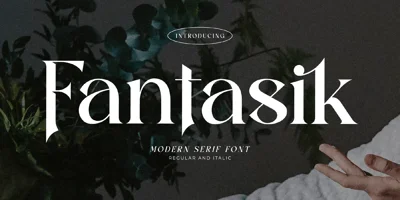
Fantasik Font
Fantasik Font is perfect for fantasy gaming brands, magical entertainment campaigns, fairy tale book covers, whimsical children's products, mystical wellness centers, enchanted event planning, creative imagination workshops, fantasy film titles, magical theater productions, and dreamlike applications that celebrate the boundless power of imagination and wonder.
What makes Fantasik Font truly exciting is its extraordinary ability to transform ordinary text into magical experiences that ignite imagination and transport audiences into realms of endless possibility and creative wonder. This exceptional typeface embodies the essence of fantasy with its enchanting letterforms and mystical character that convey both magical authenticity and imaginative power. The font's fantasy-inspired personality and wonder-filled design make it perfect for brands seeking to communicate creativity, magic, and the transformative power of imagination that turns dreams into reality and ordinary moments into extraordinary adventures.
The Fantasik Font family includes multiple weights and styles: Light, Regular, Medium, Bold, and Magical variations designed for maximum fantasy impact. Each family member maintains the distinctive enchanting character while offering flexibility for diverse imaginative applications and magical branding systems. The comprehensive character set supports fantasy typography needs and mystical design elements, making it suitable for international magical communications.
When you choose Fantasik Font, you're selecting a typography spell that delivers authentic fantasy credibility and magical wonder to every imaginative project. This enchanting typeface excels in applications where creativity and imagination are paramount, delivering exceptional magical appeal while maintaining fantasy authenticity. Whether you're designing gaming brands, children's entertainment, creative campaigns, or fantasy materials, this font provides the magical sophistication and imaginative power that resonates with dreamers who appreciate creative wonder, fantasy storytelling, and the extraordinary ability of imagination to create worlds beyond the boundaries of ordinary reality.